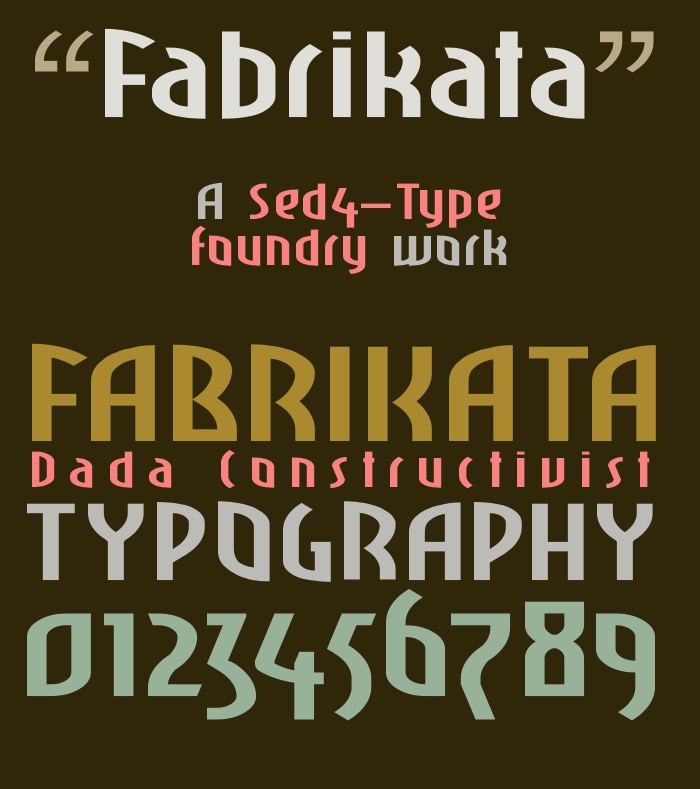
FABRIKATA — 1920s Art-Deco & Dada Constructivism inspired style
This is latest in experiments into constructing high quality customized curved shapes in small grid fonts.
For FABRIKATA I intended to break away from the grid completely, and create complex geometric letterforms with ultra smooth custom curvatures (near real Bézier).
This is what became the end result of that endeavour.
FABRIKATA sits somewhere between Alphabet Soup's Grafika typeface, countless of old Dada Constructivism print material and the brand logo lettering for Plantur 39.
Fantastic collection of curves here. I've fallen in love with that wonderful S❤️. Great font here, compa!
This is so beautiful, how about add an alternative @ but with the uppercase A inside?
Nice, I quite like the R, S, and alternate B!